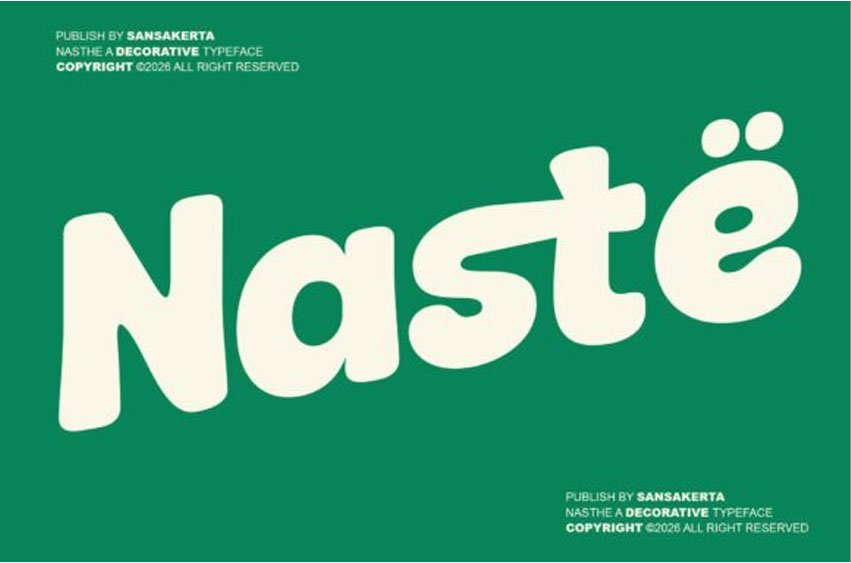
Naste Font is a bold decorative typeface with a playful retro personality inspired by the visual aesthetics of the 70s to 90s. Featuring chunky shapes, soft rounded corners, and organic letterforms, this font delivers a strong and eye-catching appearance perfect for modern vintage-inspired projects.
Designed to stand out in large sizes, Naste works beautifully across a wide range of creative applications including logos, posters, packaging, apparel branding, editorial layouts, merchandise, and social media graphics. Its groovy and expressive style creates a fun, nostalgic, and impactful visual identity.
Naste is also included full set of:
uppercase and lowercase letters
multilingual support full latin simple language
numerals
punctuation
ligature
stylistic alternate